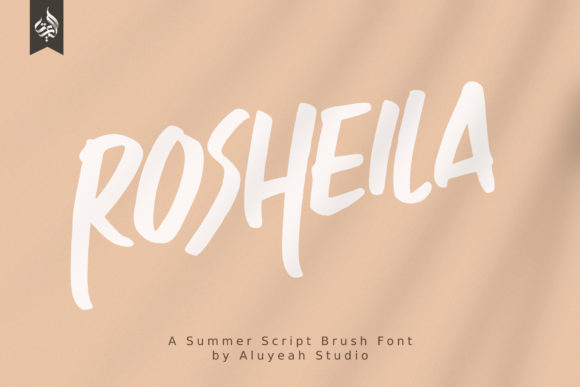
Introducing AL Rosheila Font, the captivating script font that adds a touch of casual elegance to your creative projects! Immerse yourself in the summertime vibes and let your designs flourish with this beautiful handwritten font that exudes warmth and charm.
AL Rosheila Font is crafted with meticulous attention to detail, capturing the essence of summer's carefree spirit. Each letter dances and flows effortlessly, adding a touch of playfulness to your designs. From branding and headings to wedding invitations and logos, AL Rosheila Font promises to elevate your projects to new heights.
With its wide range of applications, AL Rosheila Font is the ultimate versatile tool for designers seeking to create stunning visuals. Elevate your social media posts, website designs, and marketing materials with this font's captivating allure. Let AL Rosheila Font be your creative companion as you craft designs that resonate with your audience and leave a lasting impression.
Imagine your designs adorned with AL Rosheila Font, captivating your audience with its summery charm. Its effortless flow and casual elegance will transform your projects into visual masterpieces, leaving a lasting impression on all who encounter them. Whether you're a seasoned designer or just starting out, AL Rosheila Font is the key to unlocking your creative potential.